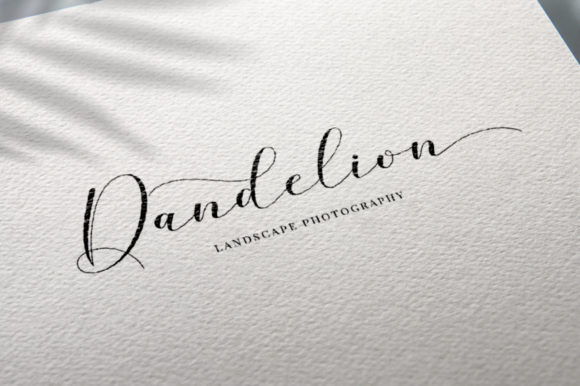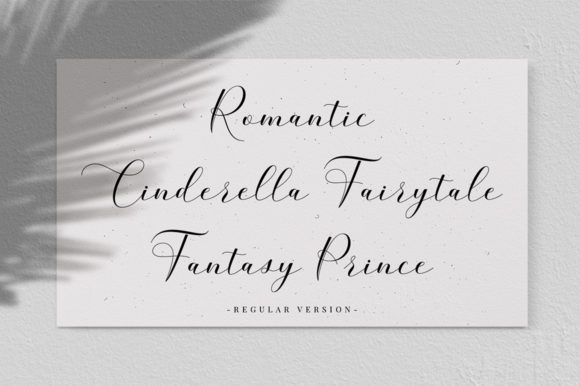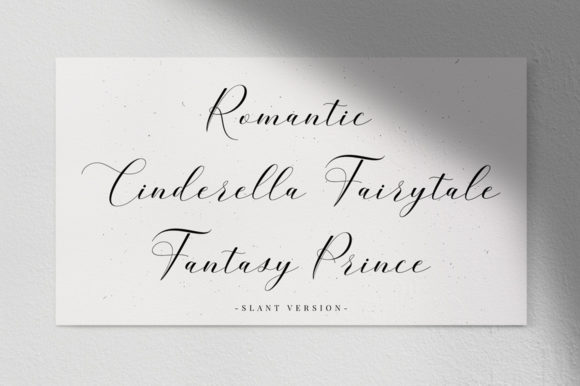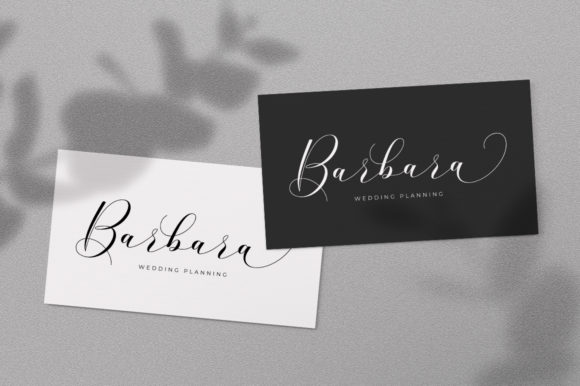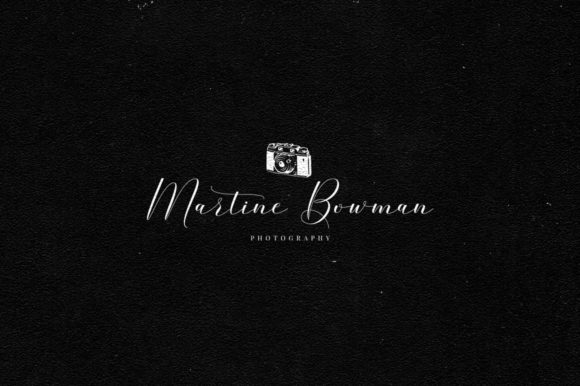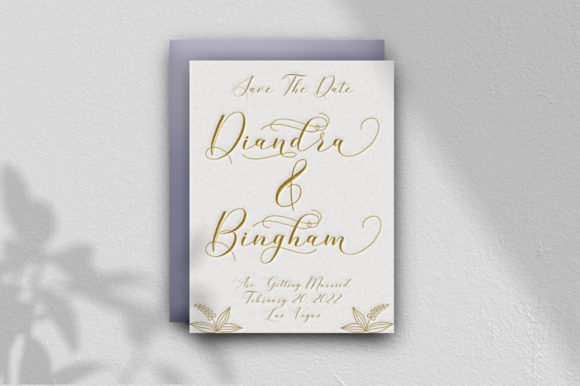
Discover the Timeless Elegance of the Belgiana Font
You know that moment when you stumble upon a design element that makes your heart skip a beat? Maybe it’s a beautiful typography, a striking color palette, or a clever composition. For designers, those moments are what make our jobs so rewarding. And today, I want to share with you one such discovery that I think will inspire you – the Belgiana Font.
This stunning script font is more than just a pretty face; it’s a versatile tool designed to add a touch of modern elegance to your designs. With its amazing swashes and intricate details, Belgiana Font is perfect for creating invitations, posters, and other visual communications that require a sophisticated look. Whether you’re a seasoned designer or just starting out, this font is a valuable addition to your toolkit.
Belgiana Font Key Features
- Unique Characteristics: The Belgiana Font features a distinctive, elegant script with a mix of modern and classic elements, making it suitable for a wide range of applications.
Belgiana Font Review
As a designer, I’ve had the chance to work with the Belgiana font, and I must say it’s a unique and interesting choice. Here’s my honest review.
- Customization options: Belgiana offers a wide range of customization options, from font weights to line heights, allowing designers to tailor the font to their specific needs.
- Creativity and elegance: The font’s unique, hand-drawn feel gives it a touch of sophistication and creativity, making it perfect for projects that require a personal touch.
- Legibility: Despite its custom look, Belgiana is surprisingly easy to read, making it a great choice for body text or headlines.
- Limited font sizes: Belgiana’s font sizes are limited, which can make it difficult to use in certain contexts, such as large body text or tiny headlines.
The Belgiana font is a great choice for designers who want to add a touch of creativity and elegance to their projects. While it may have some limitations, its customization options and legibility make it a solid choice for a wide range of applications.
Tips for Getting the Most Out of Belgiana Font
Belgiana Font is a elegant and sophisticated font that works well for:
- Formal business communications
- High-end branding and marketing materials
Remember to pair Belgiana Font with a clear and simple design to make the most of its elegant features.
Alternatives to Belgiana Font
Playfair Display is a high-end serif font ideal for luxury branding and high-end publications. It features elegant connections and refined details, making it suitable for use in magazine titles, fashion branding, and upscale advertising. Playfair Display has a more classic and luxurious feel compared to Belgiana Font, which has a more modern and minimalist appearance.
Bodoni Script
Bodoni Script is a classic calligraphic font with a flowing and elegant feel. It’s suitable for use in invitations, stationery, and high-end branding where a touch of sophistication is required. Bodoni Script is more decorative than Belgiana Font and can add a sense of luxury and refinement to a design.
Cormorant Garamond
Cormorant Garamond is a modern serif font inspired by the classic Garamond typeface. It’s suitable for use in body text and titles where a balance of elegance and readability is required. Cormorant Garamond has a more neutral and understated feel compared to Belgiana Font, making it a good choice for designs where a subtle approach is needed.